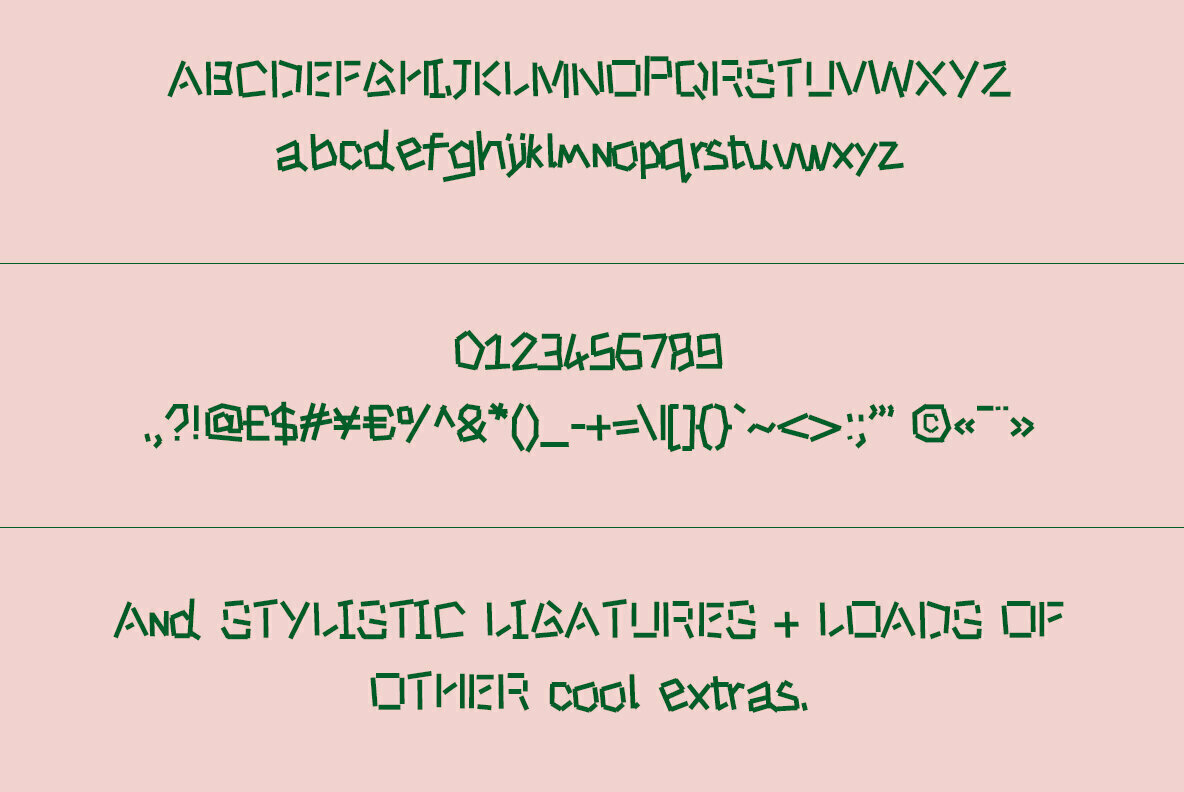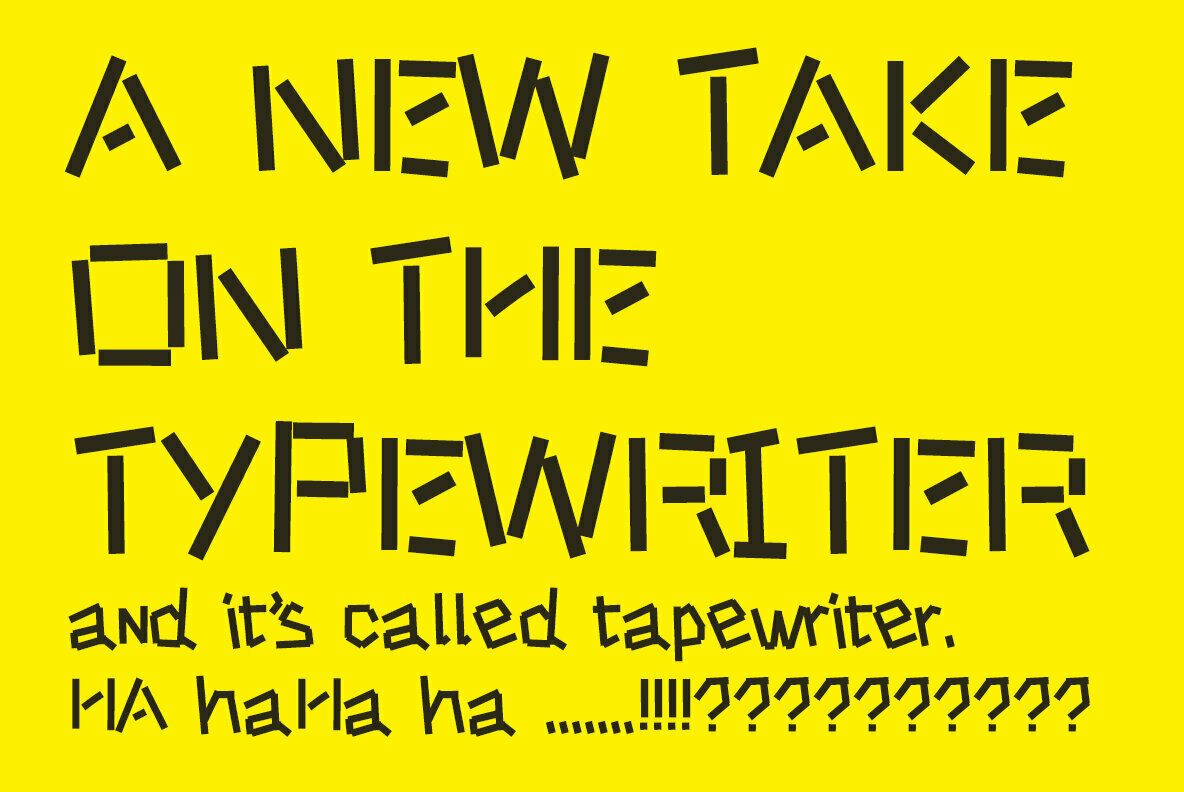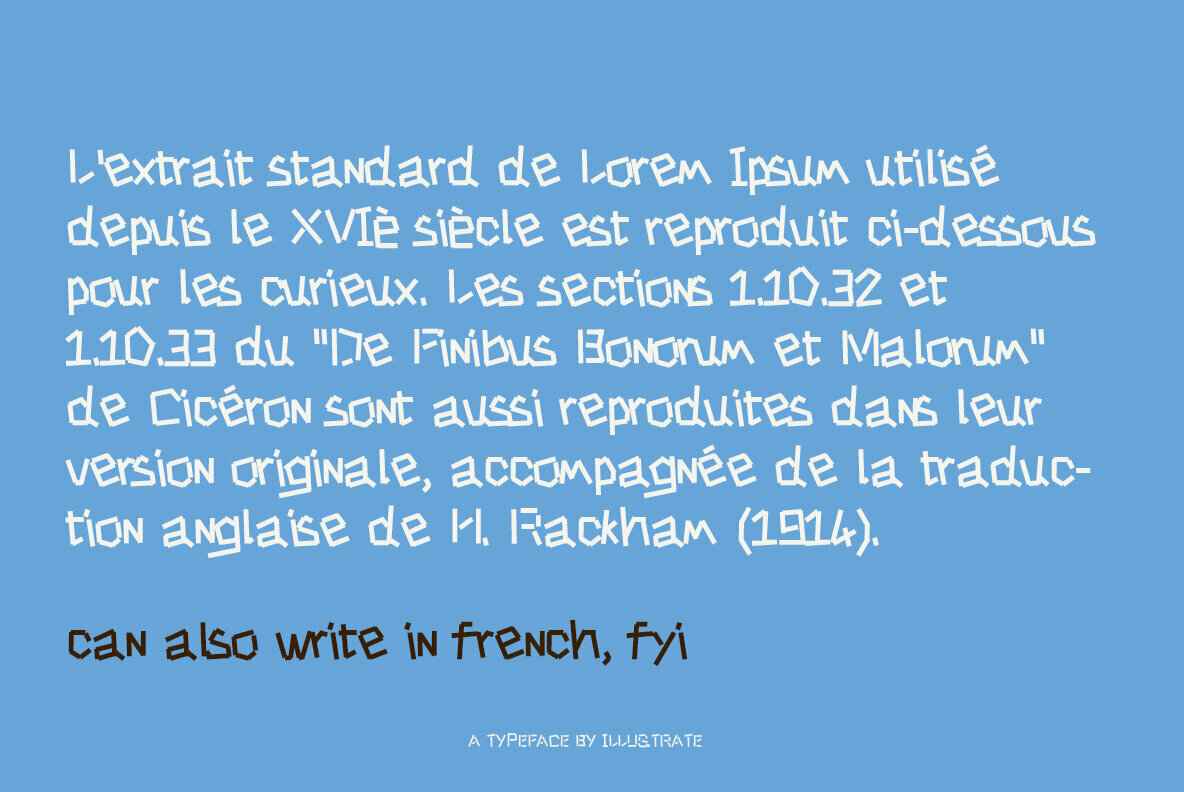
TAPEWRITER 1
A new take on the typewriter - we call it Tapewriter. A display font with real character. Designed for multiuse - headlines, titling, posters and more! It comes with extensive latin language support and stylistic alternates.